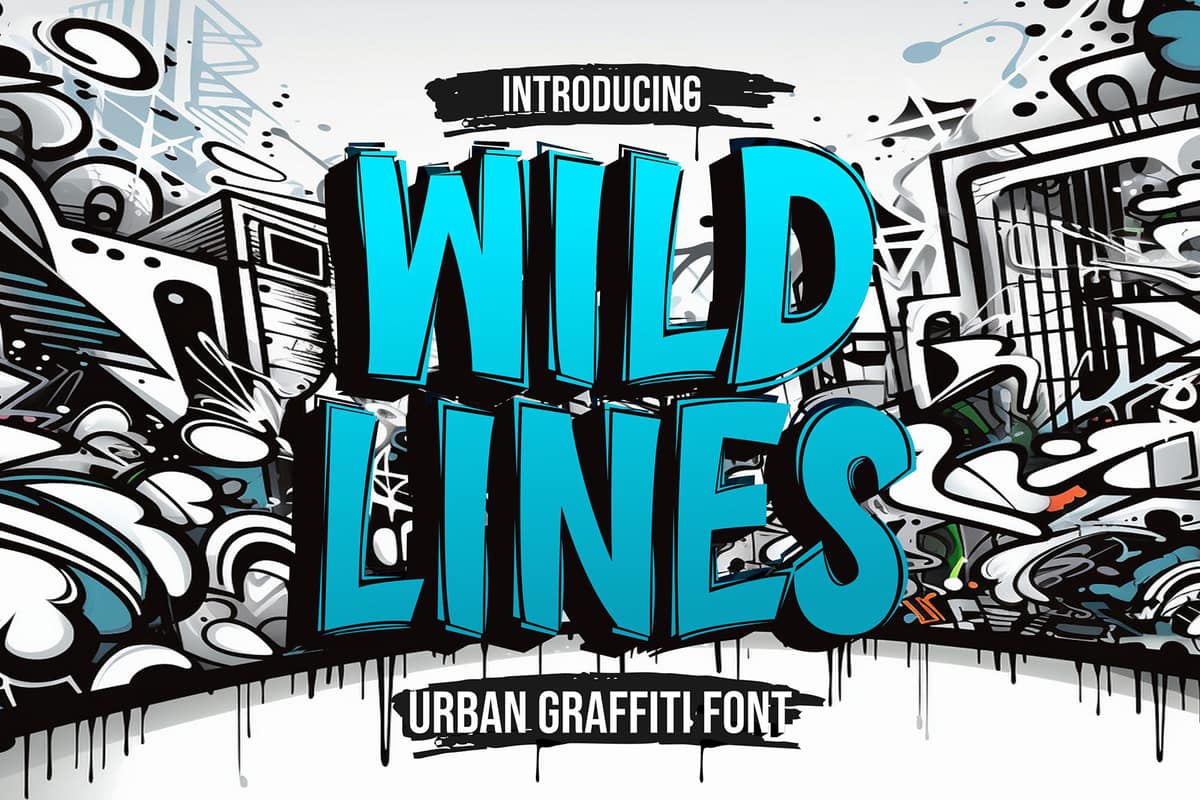
Wild Lines
Wild Lines is an edgy, high-energy graffiti font that brings an authentic street vibe to your designs. With its rugged strokes and bold lines, this font captures the raw essence of urban art, making it a fantastic choice for projects that need a strong, unapologetic statement.